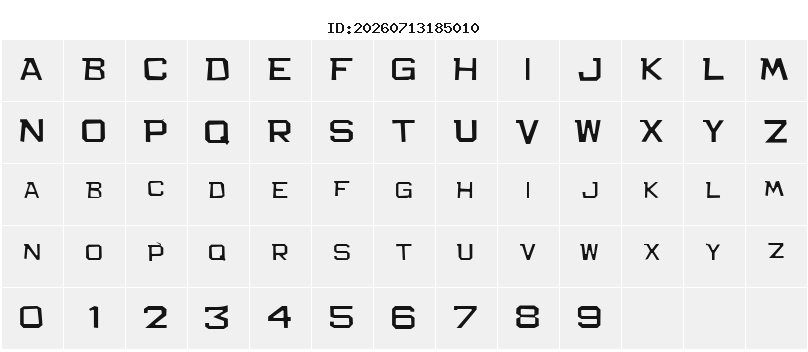
Bachelor Pad Lite JL Preview
• Font Name: Bachelor Pad Lite JL
• Full Font Name: Bachelor Pad Lite JL
• Designer: Jeffrey N. Levine
• Manufacturer: Jeff's Fonts & Dingbats
• Description: The "lite" version of "Bachelor Pad JL".
About Bachelor Pad Lite JL.ttf
Bachelor Pad Lite JL.ttf is a modern, elegant sans-serif font designed for ultimate readability and visual harmony. Perfect for branding, headlines, web design, and print materials.